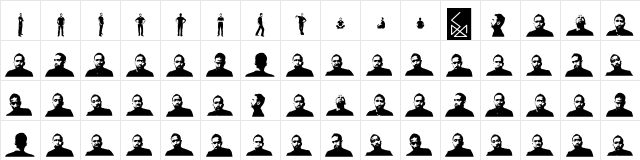
FACEsaji Font Preview
FACEsaji FACEsaji
| Designer | Saji Johnny Kundukulam |
Design Context for FACEsaji Typeface
FACEsaji is a composed and adaptable typeface that performs quietly and consistently across a wide range of design contexts.